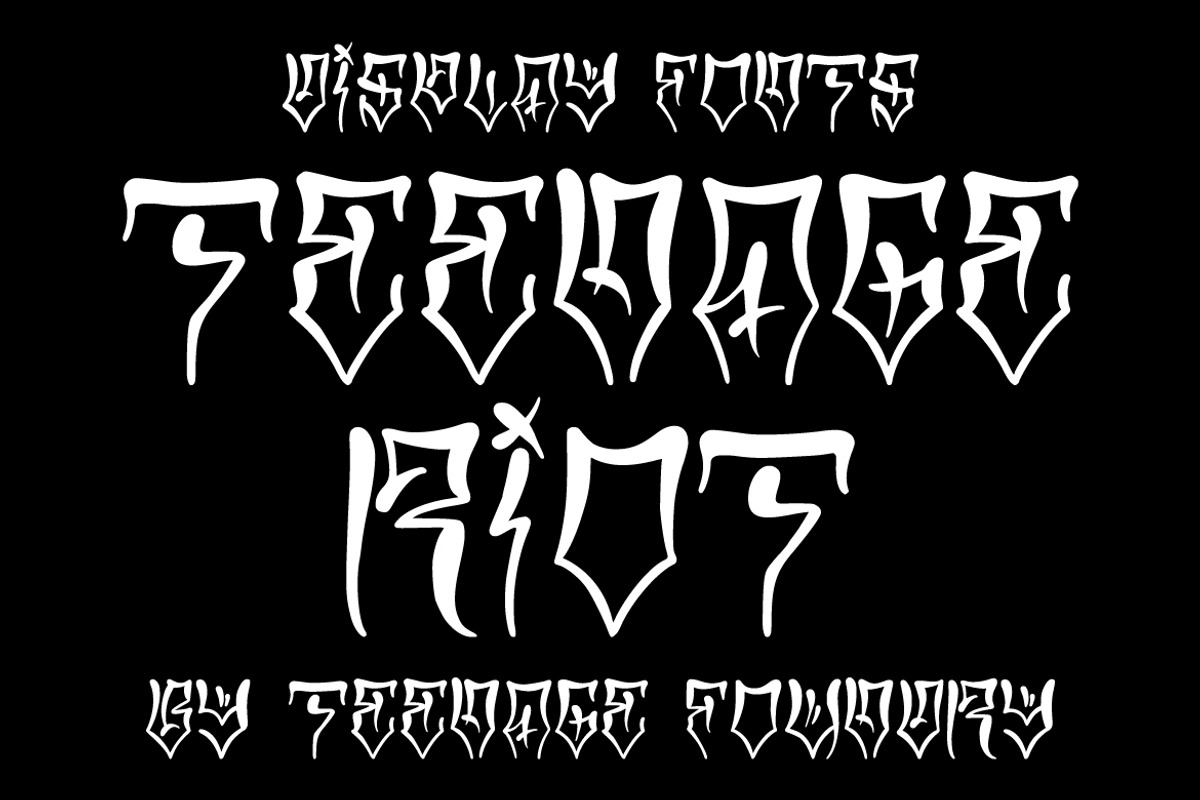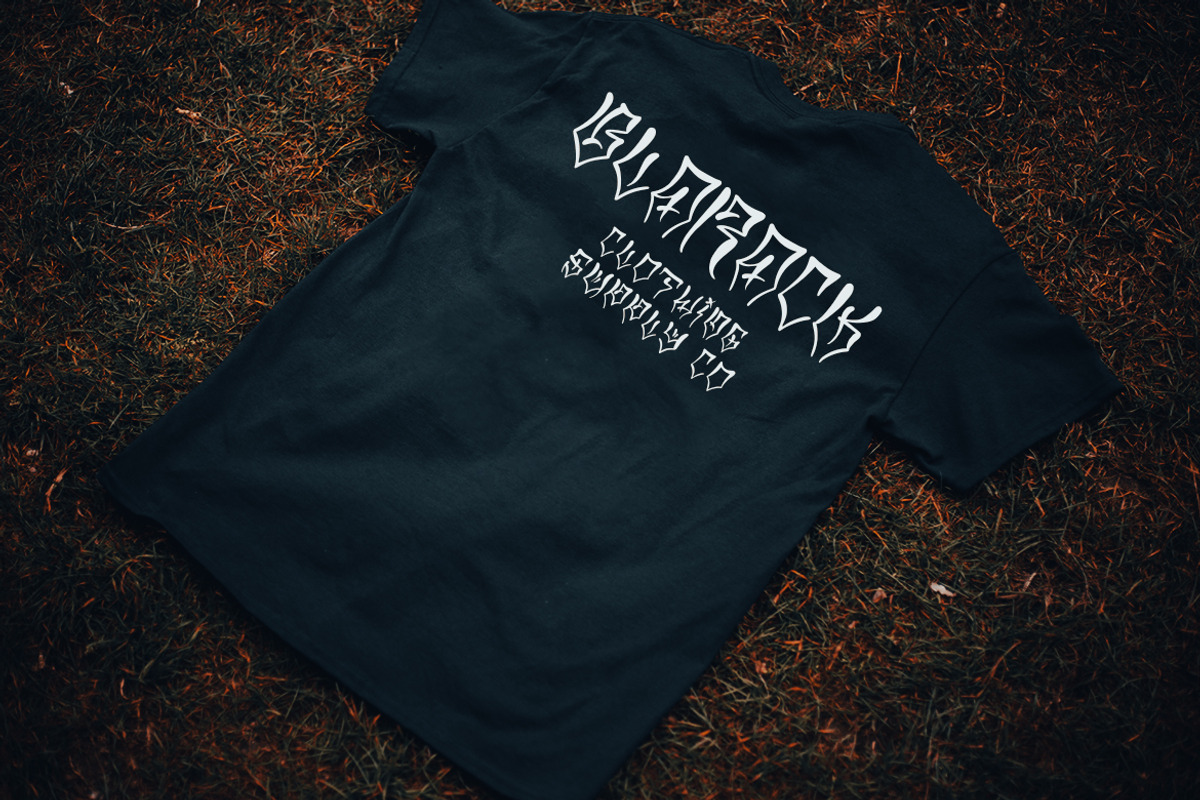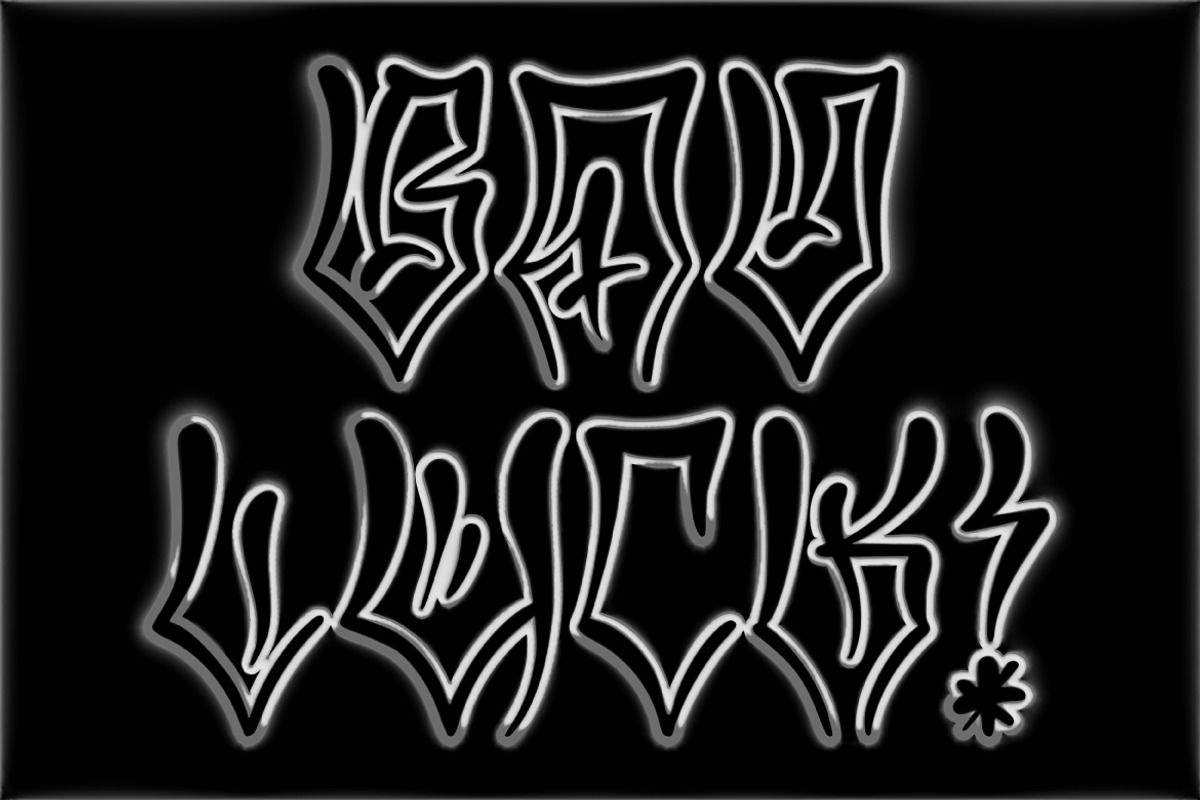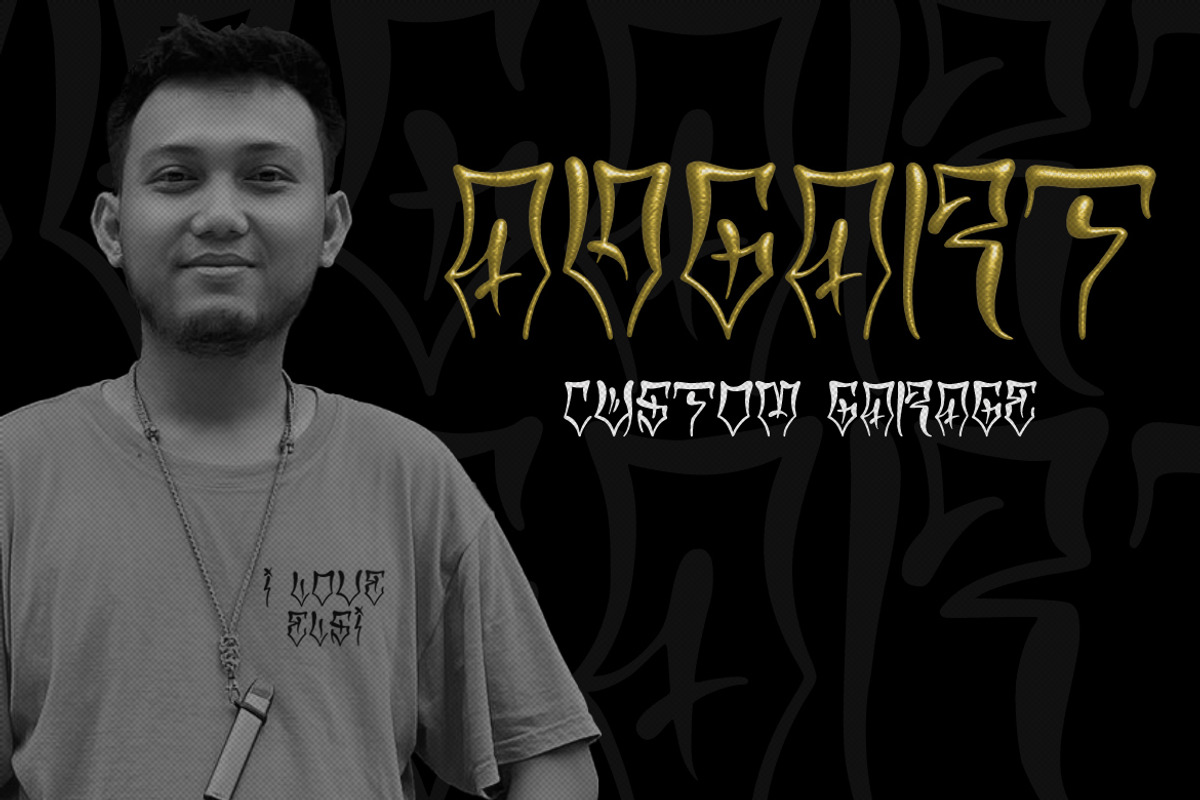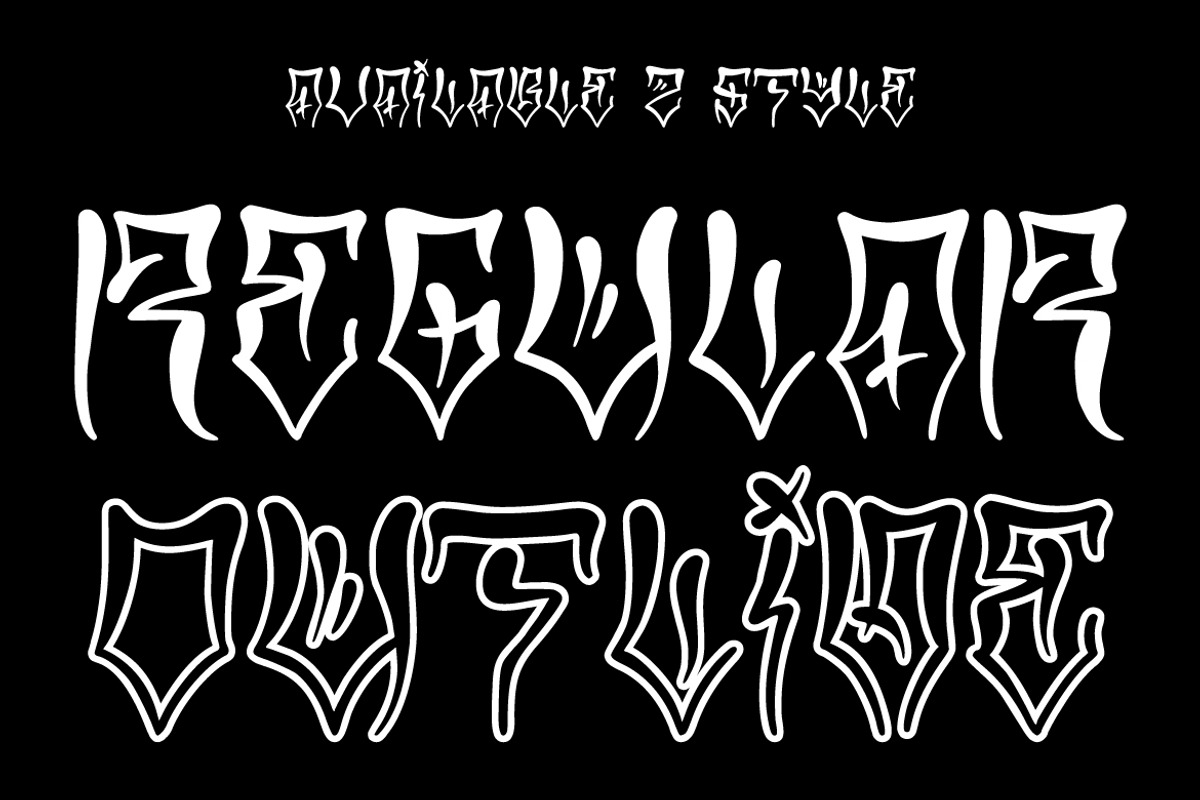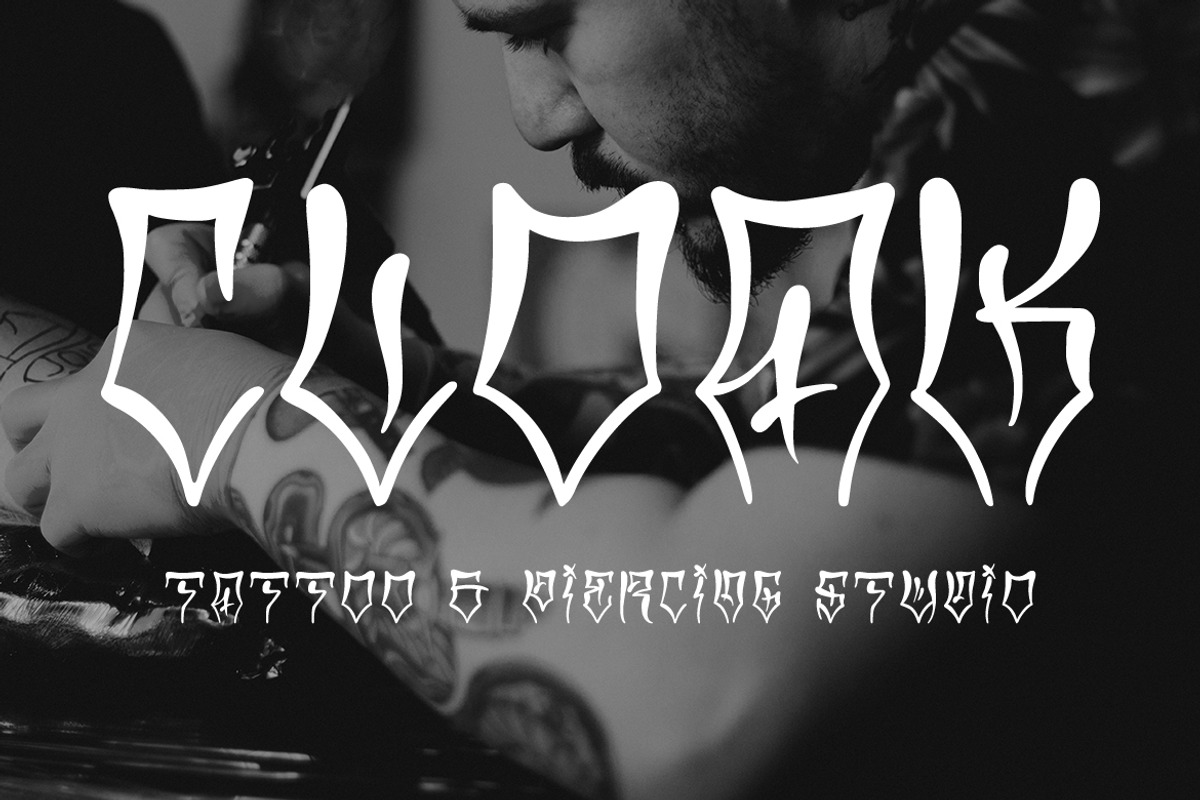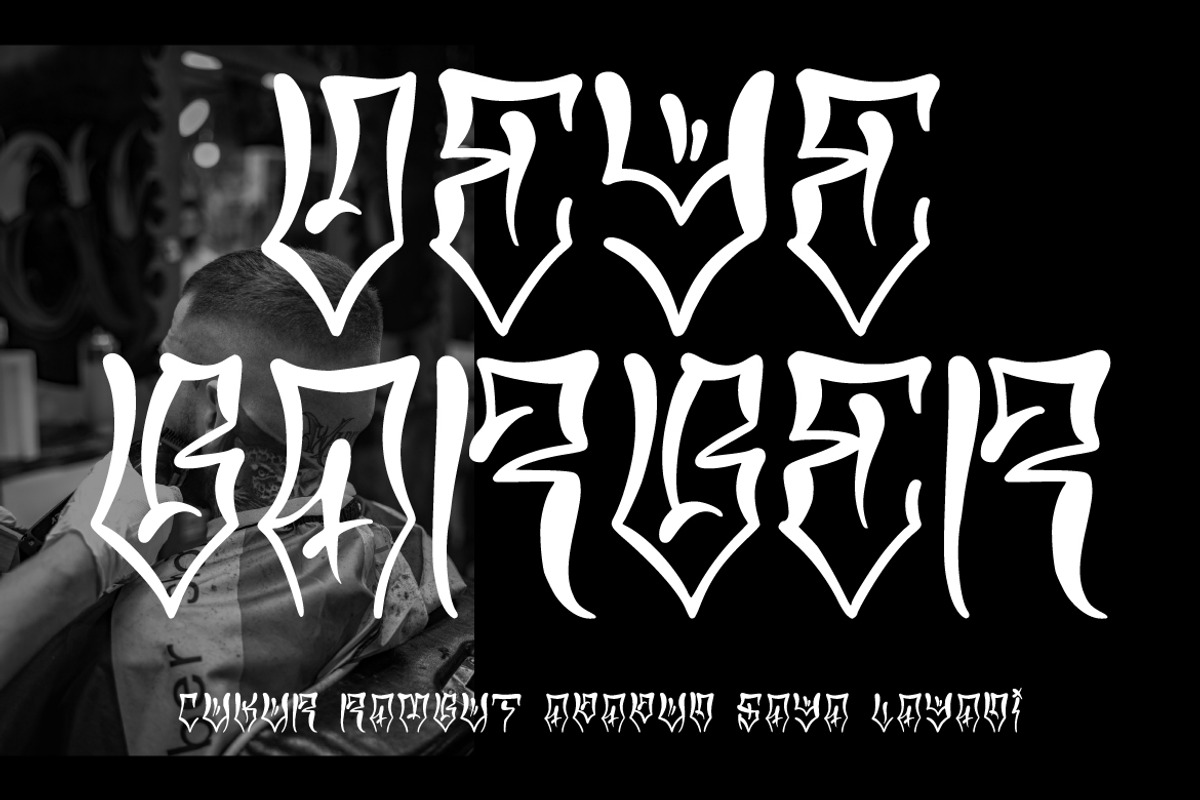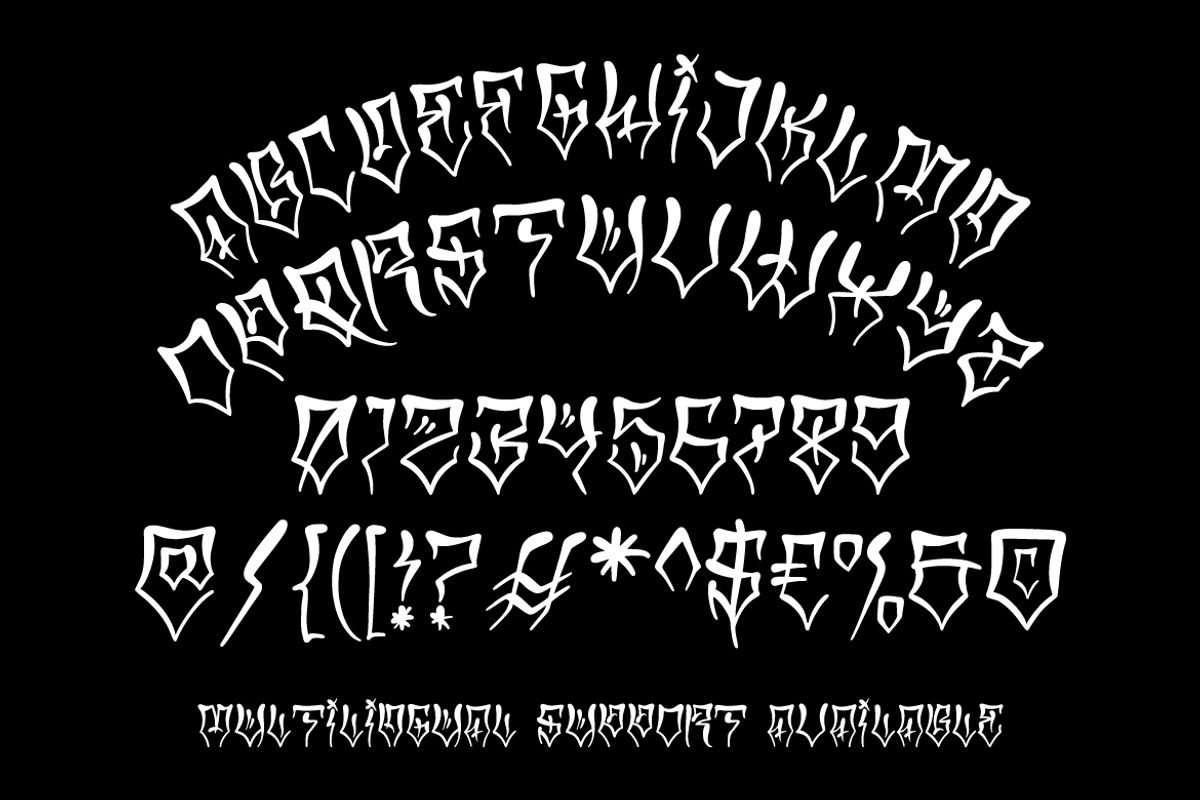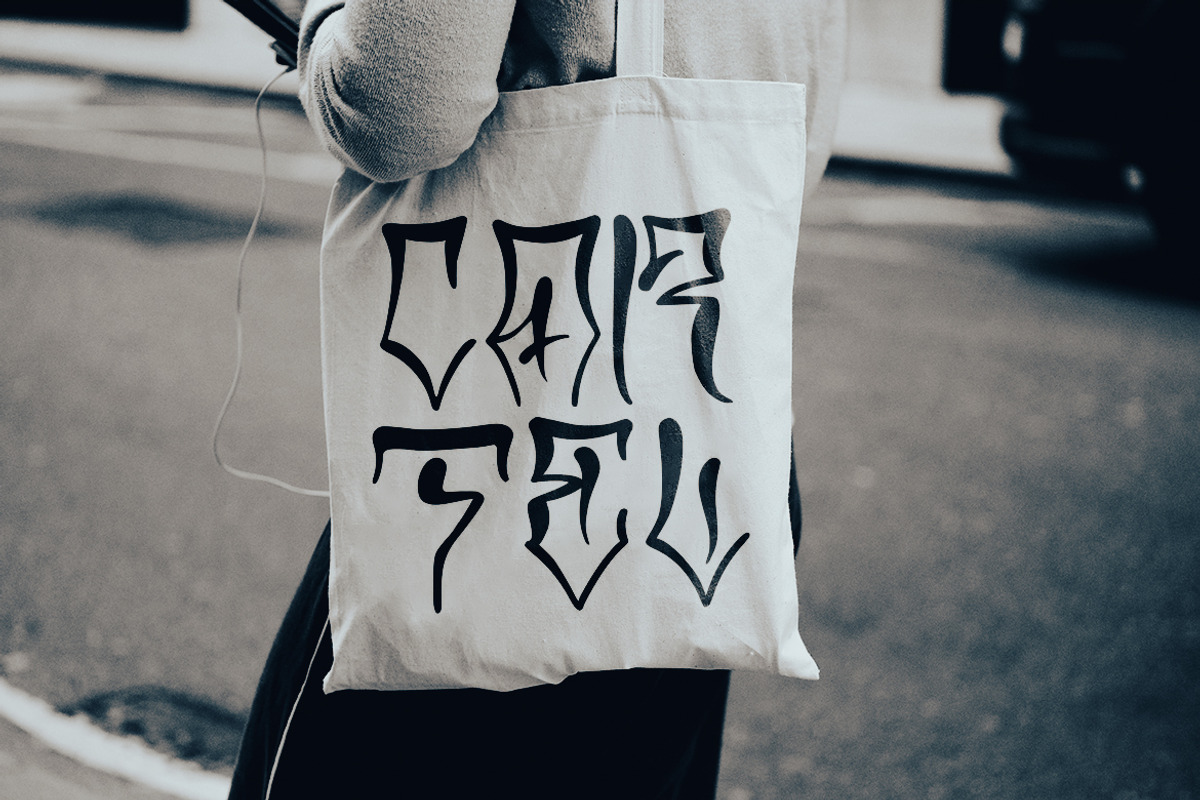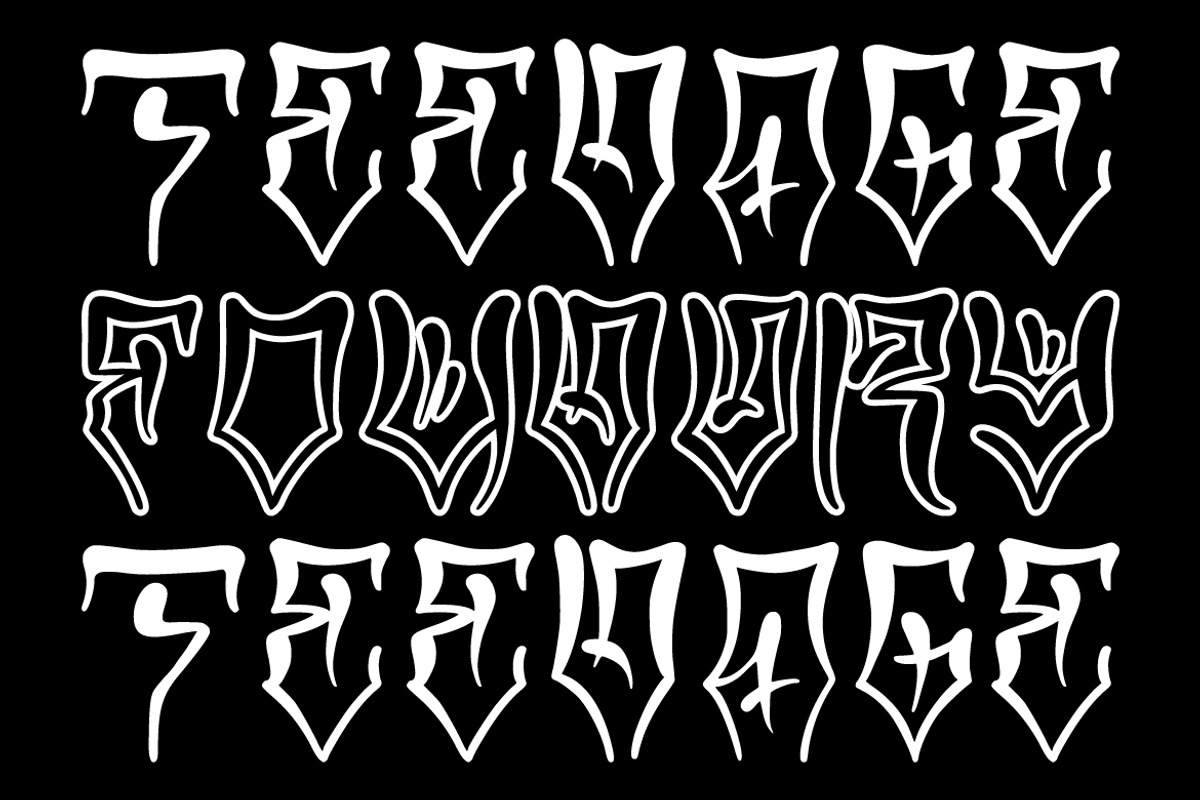
Teenage Riot
Teenage Riot is a Display Font.
Inspired by the awesome Chicano lettering style. Look simpler with 2 styles (Regular & Outline) in today’s modern era. Suitable for poster designs, logos, merchandise and others.
Features: Uppercase, Lowercase, Numeral, Punctuation & Multilingual.